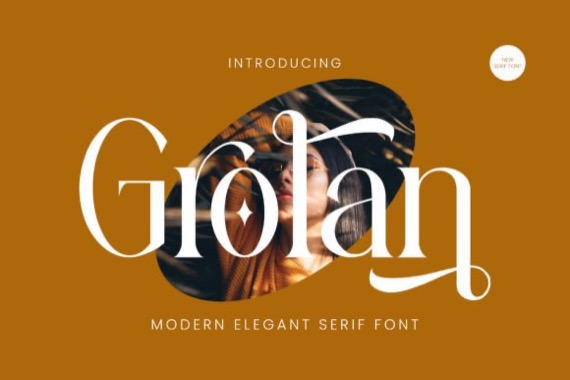
Grolan, a Futurism Serif font by Slide Shoot. Its clean, geometric lines and minimalistic strokes evoke a sense of modernity, making it perfect for designs that seek a futuristic and cutting-edge look. It fits perfectly with invitation card designs, company logos, movie titles, movie names, business cards, book titles, brand names and various other designs. Grolan Serif is a subtle serif font that exudes sophistication and elegance. Its stylish alternations and ligatures make this font the perfect partner for any project.
Grolan Serif Font